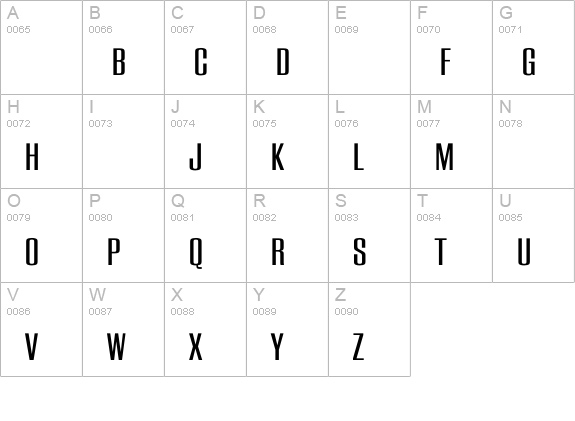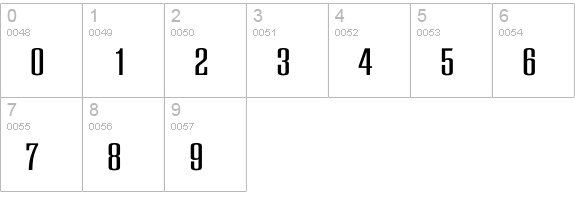
EuropaGrotesqueMedium Font Details
EuropaGrotesqueMedium is a versatile and modern font that strikes the perfect balance between sophistication and readability. With its clean lines and sharp edges, this typeface exudes a sense of professionalism and elegance. The medium weight of the font allows for easy readability in both print and digital formats, making it ideal for a wide range of design projects. What sets EuropaGrotesqueMedium apart is that it is available for free download at FontsMarket.com. This means that you can easily access this high-quality font without any cost, making it a valuable resource for designers, creatives, and anyone looking to elevate their projects with a touch of contemporary style. Whether you're designing a website, creating a branding package, or working on a print publication, EuropaGrotesqueMedium is sure to add a touch of sophistication to your work.